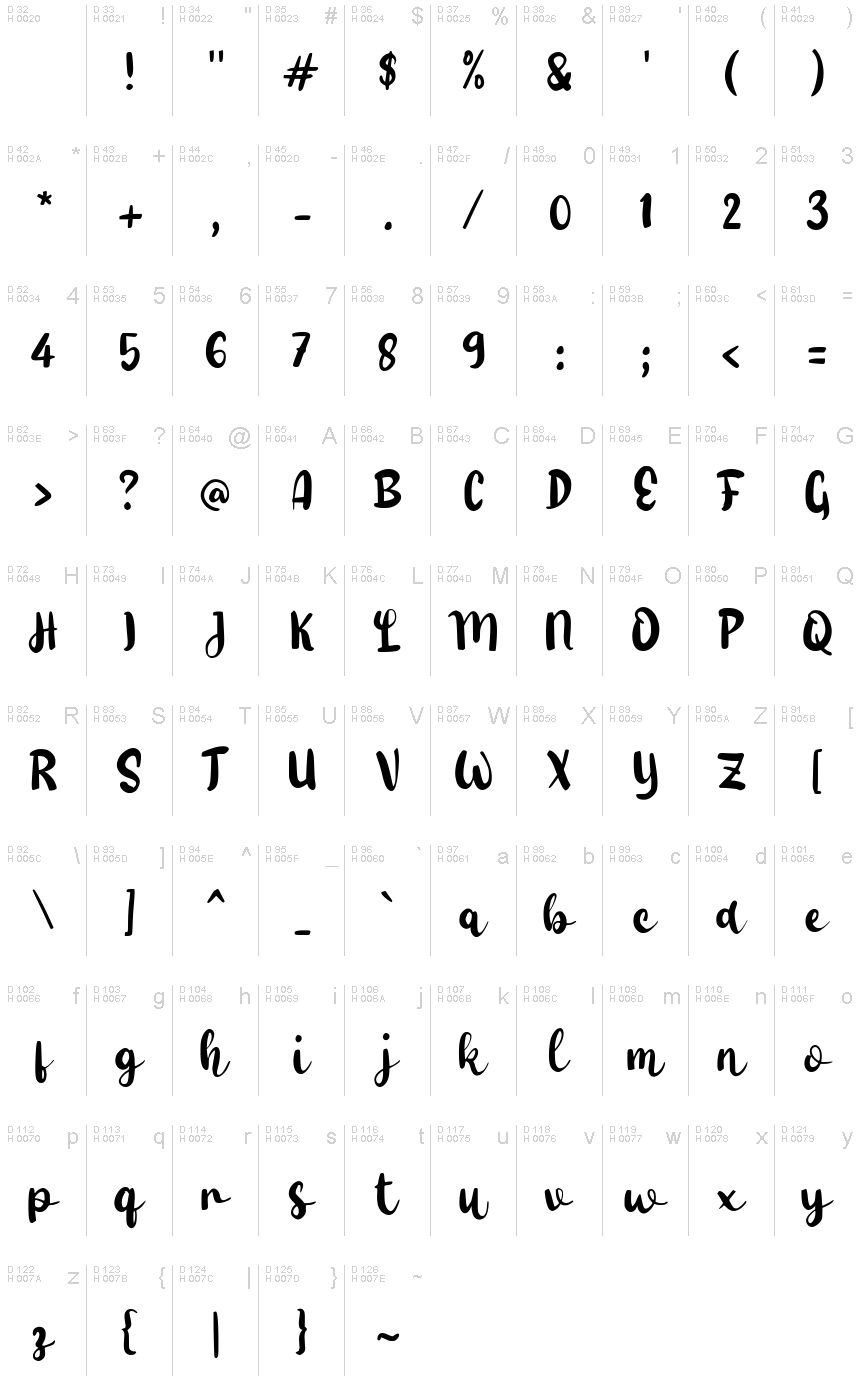
Fahmila
Fahmila, designed by wep, is a semi-bold handwritten font that exudes charm and personality. Its fluid strokes and varying line weights capture the essence of natural handwriting, offering a blend of sophistication and warmth that is instantly inviting. The semi-bold weight adds a touch of assertiveness to its character, making it stand out in any creative context.
The aesthetic appeal of Fahmila lies in its balance between legibility and artistic flair. Each letter showcases a subtle playfulness that makes it ideal for designs requiring a personal touch. From invitations and greeting cards to branding projects and advertising campaigns, this font's versatile style ensures it fits seamlessly into diverse design landscapes.
Embrace the distinctive look of Fahmila for your next project to infuse your work with its unique handwritten quality that is both elegant and approachable.
The aesthetic appeal of Fahmila lies in its balance between legibility and artistic flair. Each letter showcases a subtle playfulness that makes it ideal for designs requiring a personal touch. From invitations and greeting cards to branding projects and advertising campaigns, this font's versatile style ensures it fits seamlessly into diverse design landscapes.
Embrace the distinctive look of Fahmila for your next project to infuse your work with its unique handwritten quality that is both elegant and approachable.